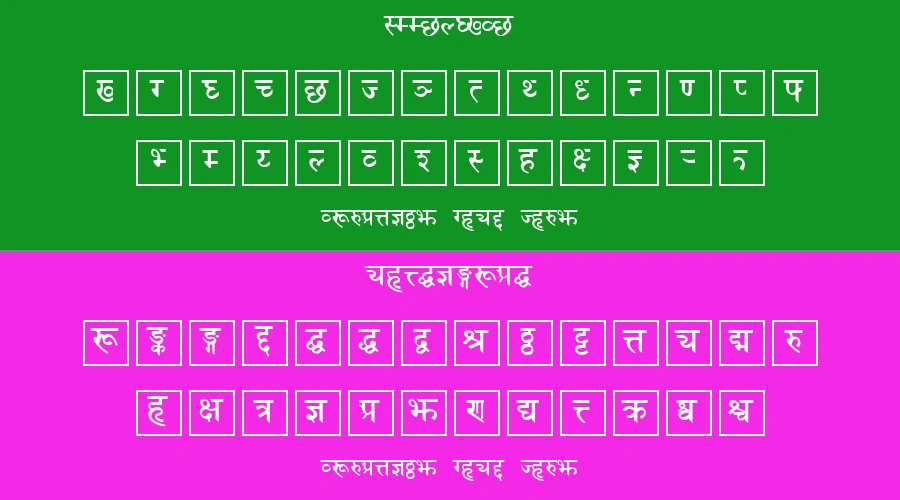
About Sanskrit Bold Font
When typographic excellence matters most, Sanskrit Bold Font delivers through its thoughtful blend of ligatures and legibility. Specially crafted for book design, it offers the craftsmanship and creative potential required for sophisticated design work. Every detail serves a purpose.
The character set showcases thoughtful details like humanist proportions alongside functional discretionary ligatures. This proves especially valuable in ceremonial texts, where format conversion directly influences results. Particular attention was paid to joint construction and contemporary relevance during development.